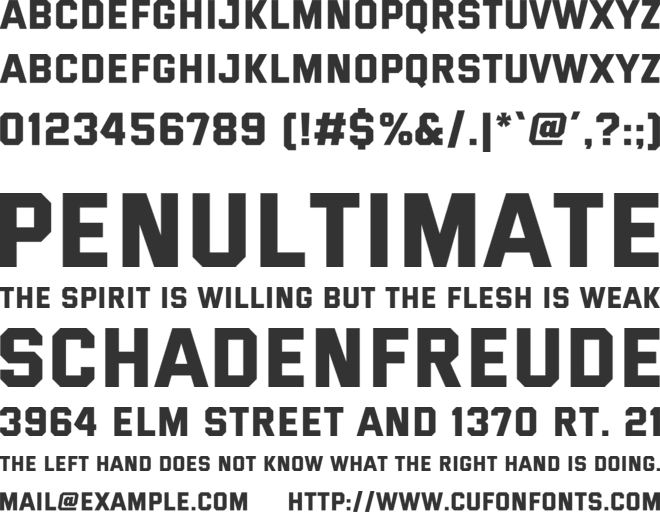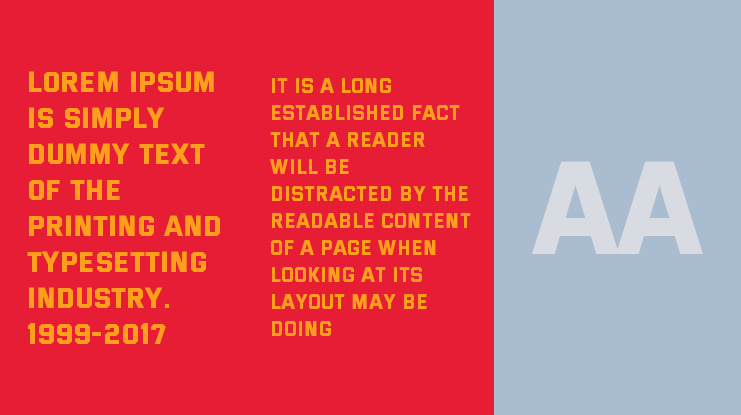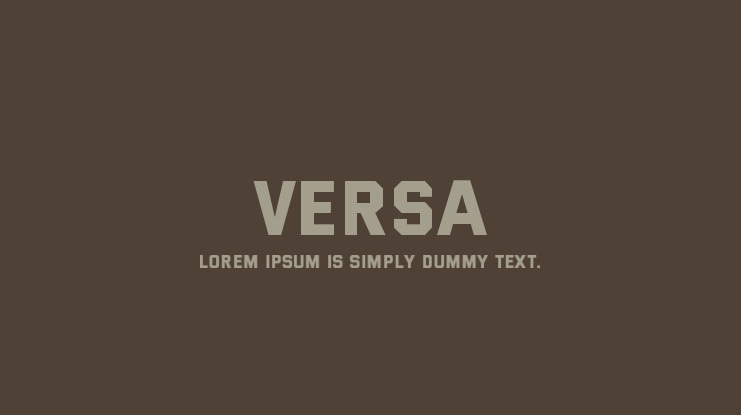
Versa Font
Remember the great feeling when a project comes along and you instantly know the perfect font for the job? Now imagine there was a versatile font family that made this feeling a regular occurrence. With its 17 easily stackable layers, VERSA ensures every project not only stands out, but fills you with ease.